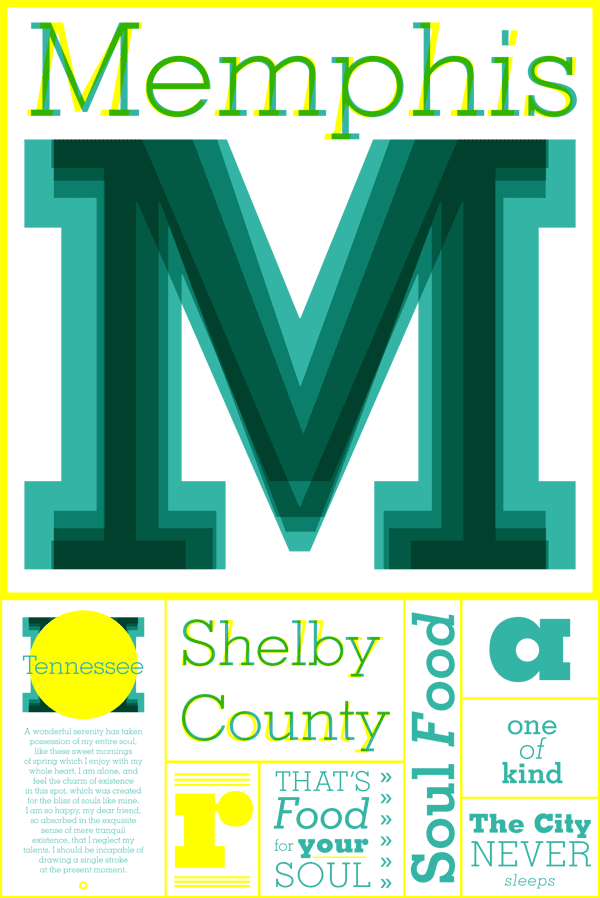
Memphis – Slab Serif Type Family.
German font designer Dr. Rudolf Wolf was the first who combined slab serifs with the forms of sans serif fonts. He originally created the Memphis font in 1929 for type foundry Stempel. Nowadays, the Memphis™ font family will be published by Linotype. The complete family includes styles from light to extra bold plus corresponding italics. Its typeface is significantly influence by the slab serif style of American typeface Litho Antique from 1910. Memphis has a harmonious and legible typeface mixed with a striking appearance. These attributes make it a good display font as well as text font.